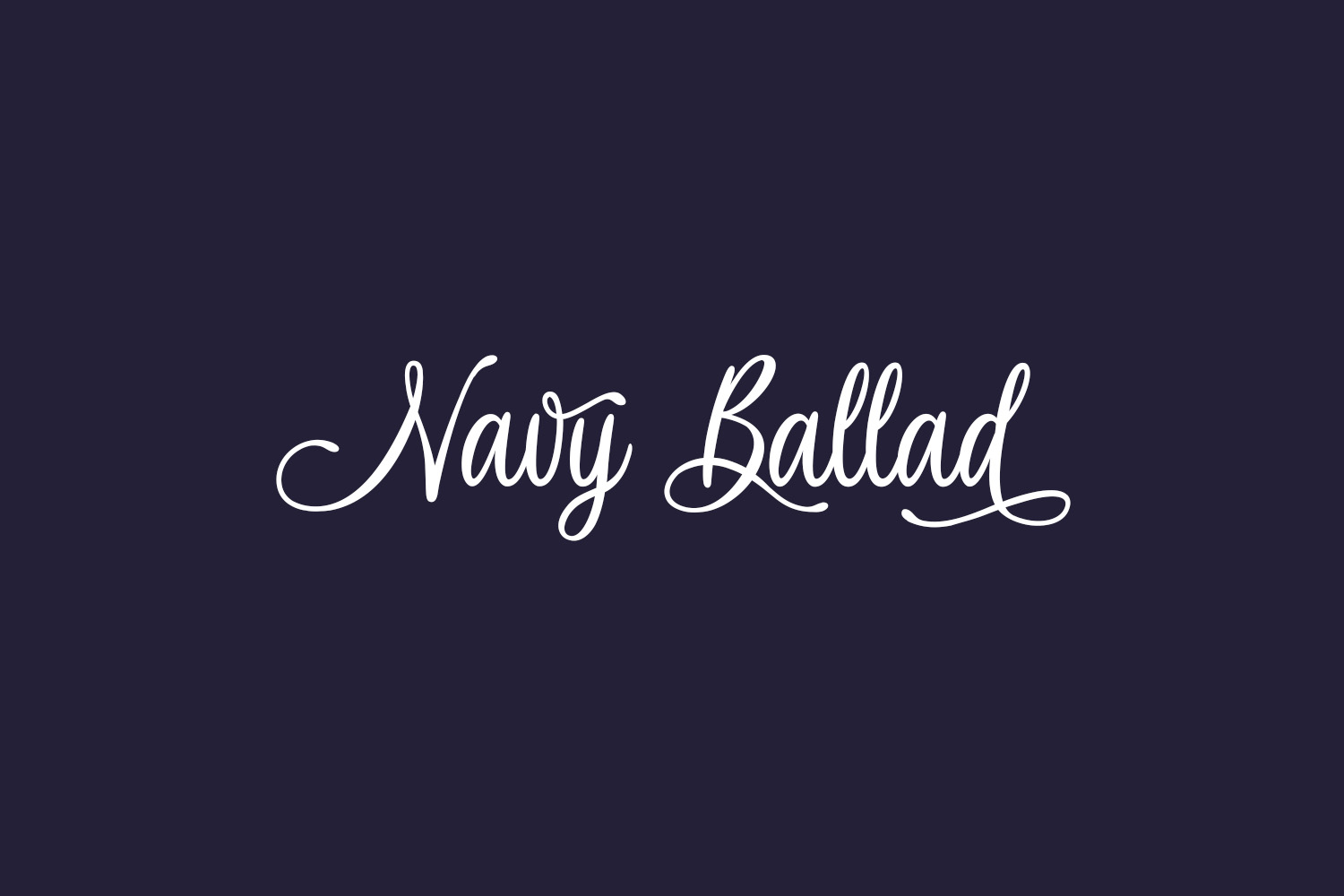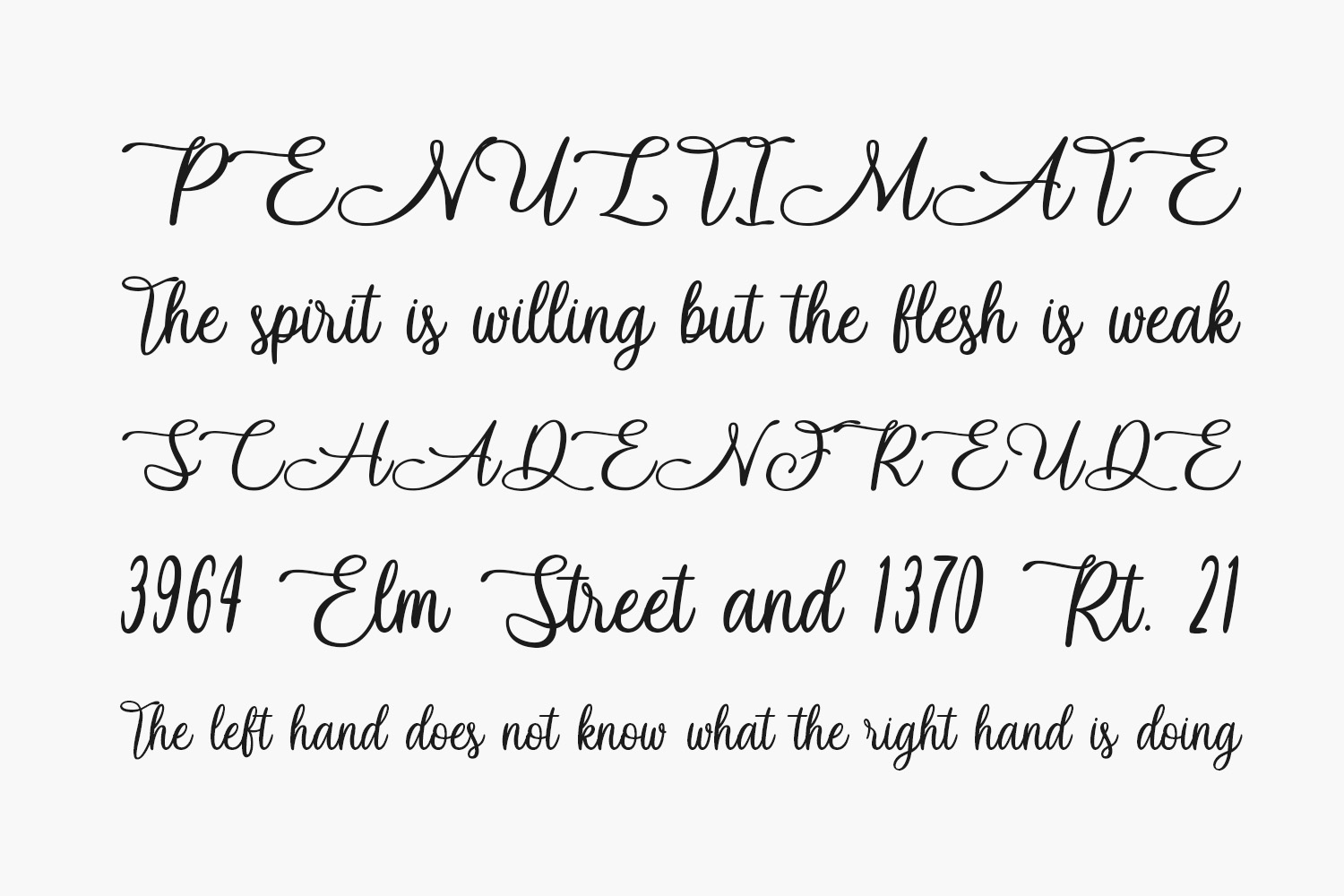
Navy Ballad Free Font is a stunning and organic handwritten font with a lovely feel. Use it to turn any design project into a standout. Navy Ballad Free Font was designed by Typhoon Type™ and is free for personal use only. Please purchase the full version for commercial use.